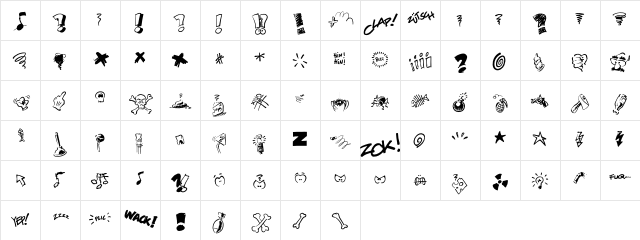
DamnedDingbatsEF Regular Font Preview
DamnedDingbatsEF Regular
DamnedDingbatsEF Regular Font Details
Design Context for DamnedDingbatsEF Typeface
DamnedDingbatsEF is a composed and adaptable typeface that performs quietly and consistently across a wide range of design contexts.